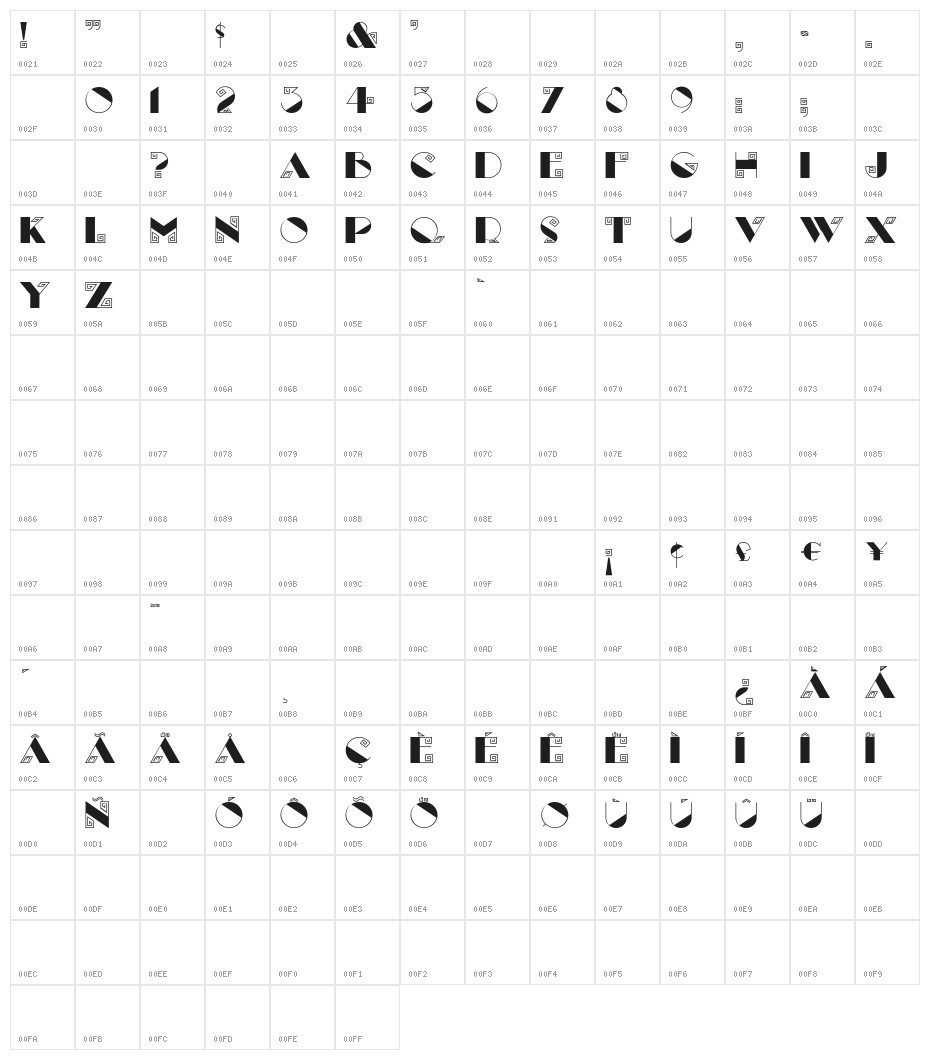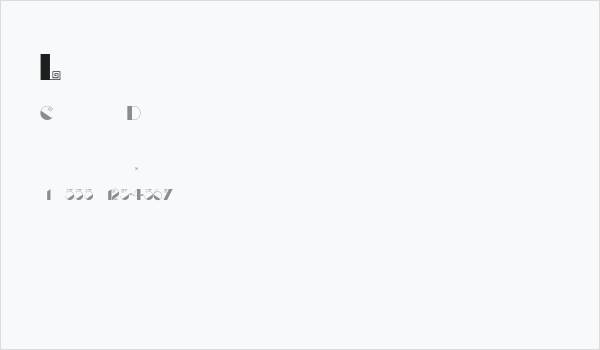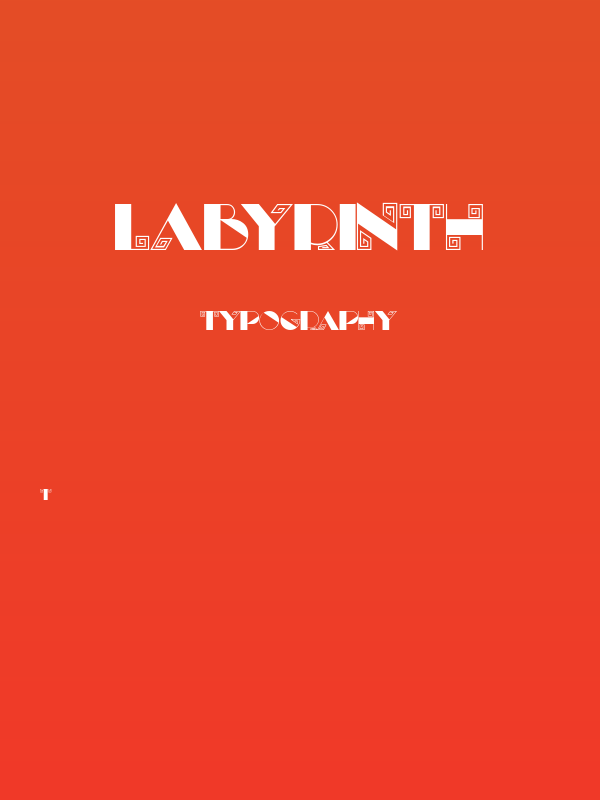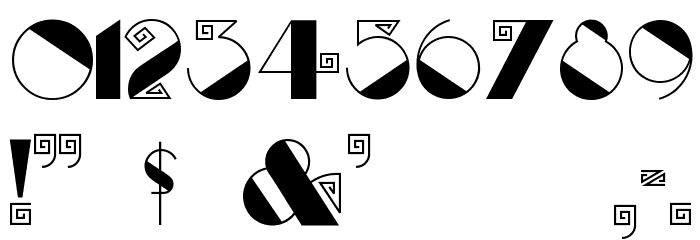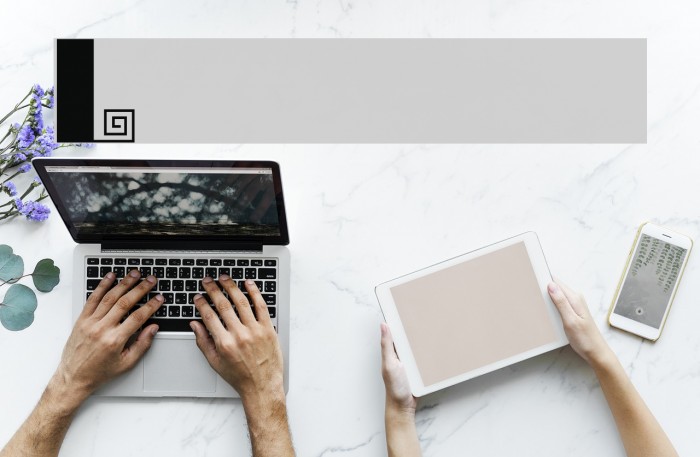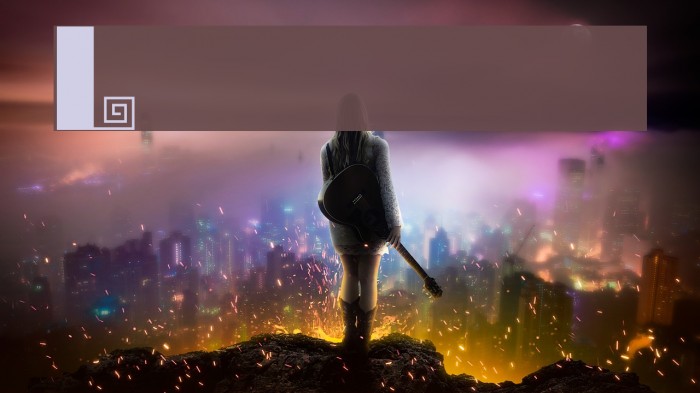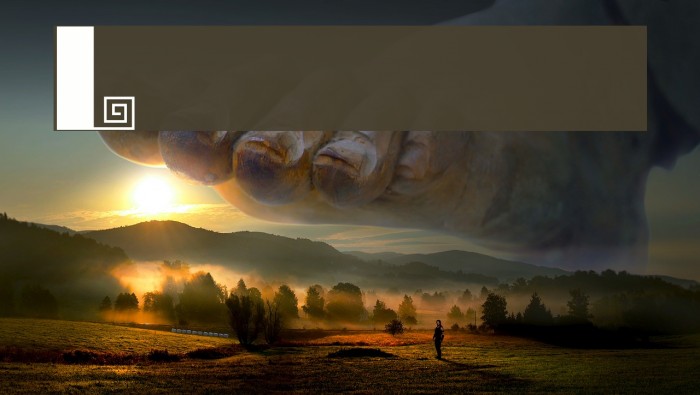
Labyrinth Font
Labyrinth Description
This font features a bold and geometric style with intricate, maze-like patterns integrated into each character. The uppercase letters are particularly striking, with sharp angles and unique embellishments that resemble ancient labyrinth designs. The numbers and special characters maintain this theme, offering a cohesive and visually engaging appearance. The font's distinctiveness makes it ideal for projects that require a touch of mystery and sophistication. Its boldness ensures high visibility, while the decorative elements add a layer of complexity and intrigue.
| Use Case | Logos, Headlines, Posters |
| Proposed Projects | Ideal for branding, posters, album covers, and any project requiring a mysterious or sophisticated aesthetic. |